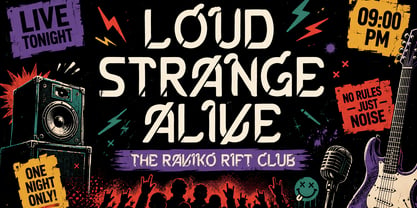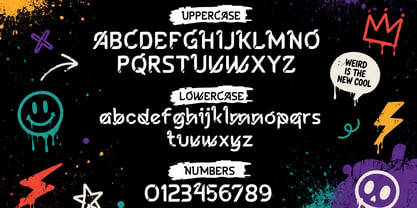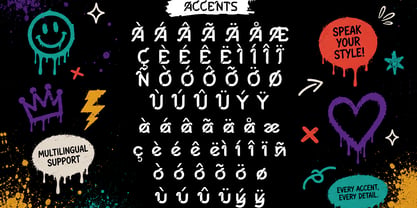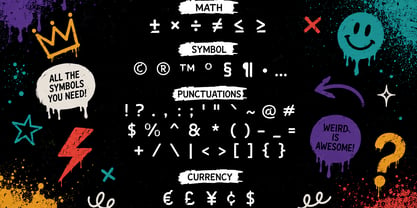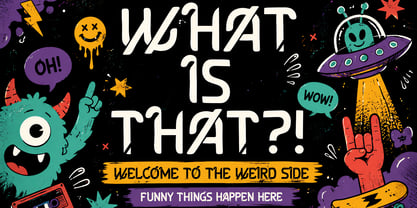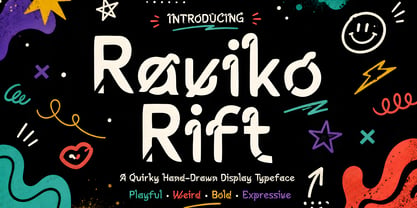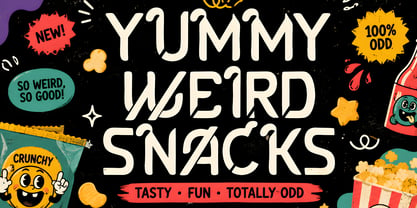
Raviko Rift
La famille de polices Raviko Rift a été conçue par Wahyu Eka Prasetya, Mei Suseno et publiée par Mei Suseno. Raviko Rift contient 2 styles et options de package familial. En savoir plus sur cette famille
Raviko Rift is a quirky hand-drawn display typeface with a bold, playful, and slightly rebellious personality. Its distinctive shapes, irregular details, and expressive cuts give every word a fun and unexpected character.
Perfect for designs that need to stand out, Raviko Rift works beautifully for posters, branding, packaging, logos, album artwork, apparel, stickers, children's designs, social media graphics, and creative headlines.
The family includes Regular and Slant styles, giving you the flexibility to create both energetic upright compositions and more dynamic, expressive layouts. With its playful personality and distinctive handcrafted appearance, Raviko Rift is made for designers who want their typography to feel fun, weird, bold, and full of attitude.